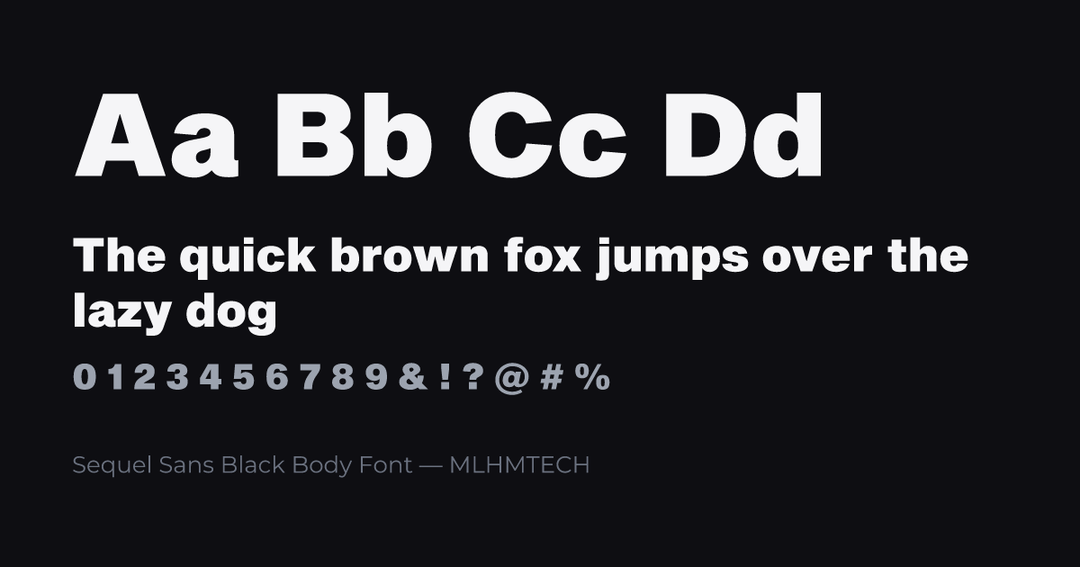
Sequel Sans Black Body Font
Sequel Sans Black Body is a modern, geometric sans-serif font with a bold, clean aesthetic. Ideal for headlines, logos, and branding projects.
Sequel Sans Black Body is a versatile sans-serif font that combines geometric precision with a contemporary feel. Its black weight makes it perfect for impactful headlines, posters, and branding materials that demand attention.
This font is part of the Sequel Sans family, known for its clean lines and excellent legibility. The Black Body variant offers a sturdy, confident look that works well in both print and digital media.